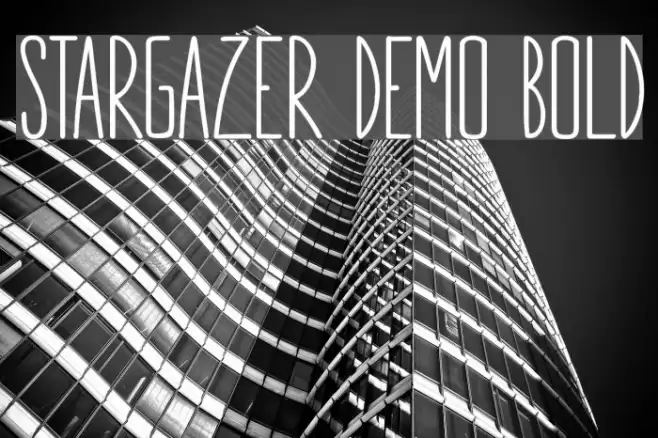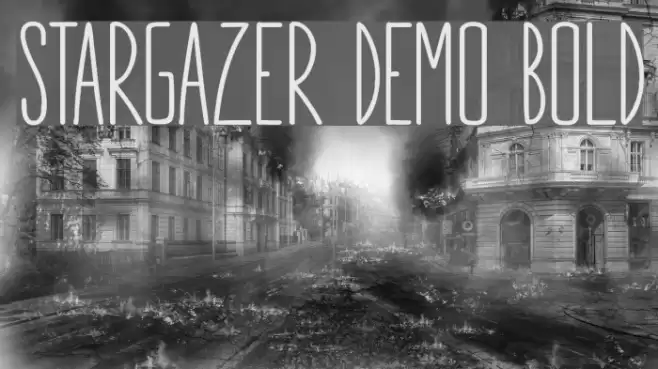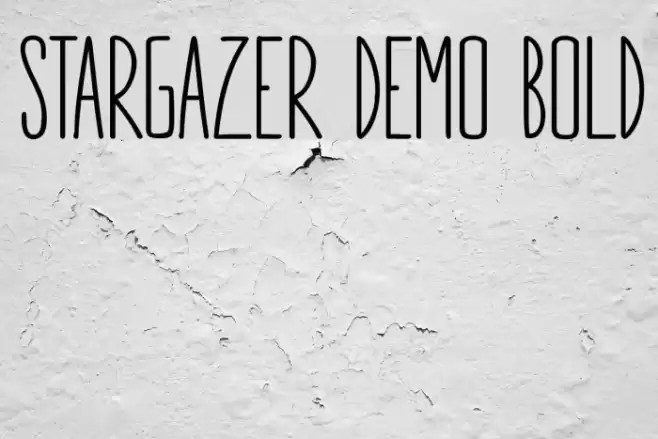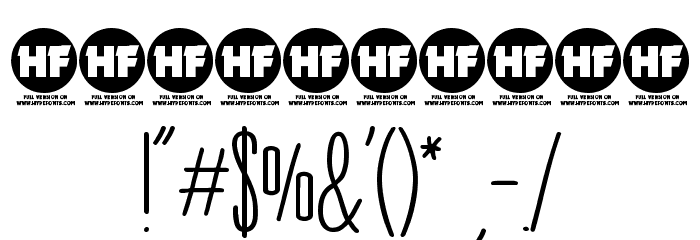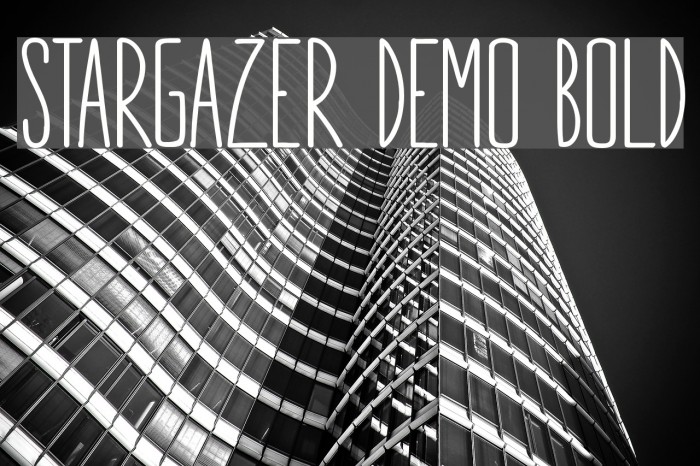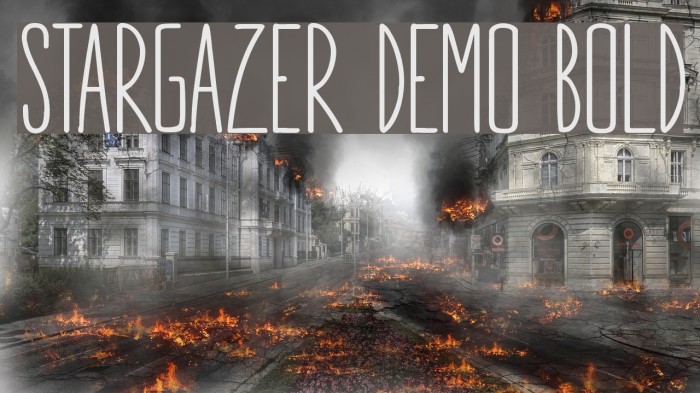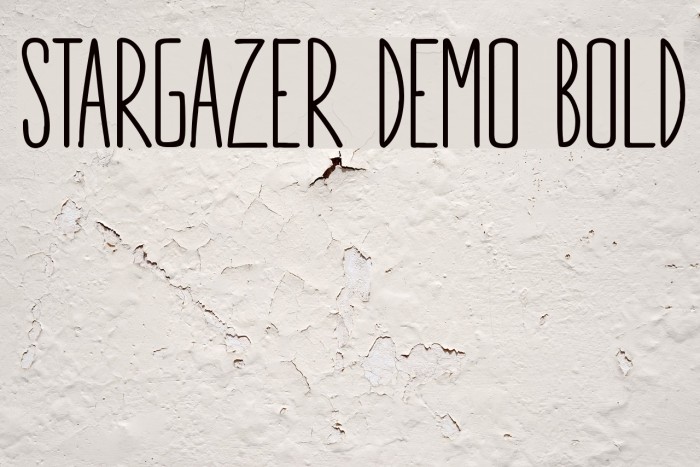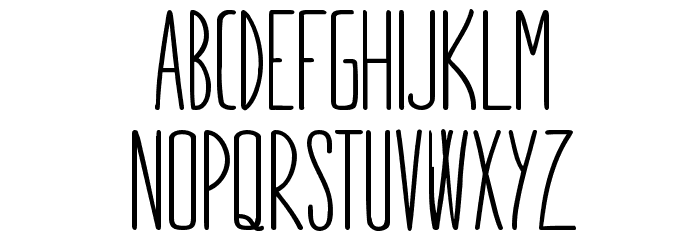
STARGAZER demo Bold Font
STARGAZER demo Bold Description
This font features a tall and narrow design with elongated characters that convey a sense of modern elegance. The strokes are consistent in width, giving it a clean and streamlined appearance. The uppercase letters are particularly elongated, while the lowercase letters maintain a similar style, ensuring uniformity across the typeface. The numerals and special characters follow the same design principles, making them easily readable and visually appealing. This font's unique style is suitable for creating a distinct and sophisticated look in various design projects.
A tall, narrow font with consistent stroke width and modern elegance from Uncategorized fonts.
- Proposed Projects: Ideal for branding, headlines, posters, and editorial design where a modern and sophisticated look is desired.